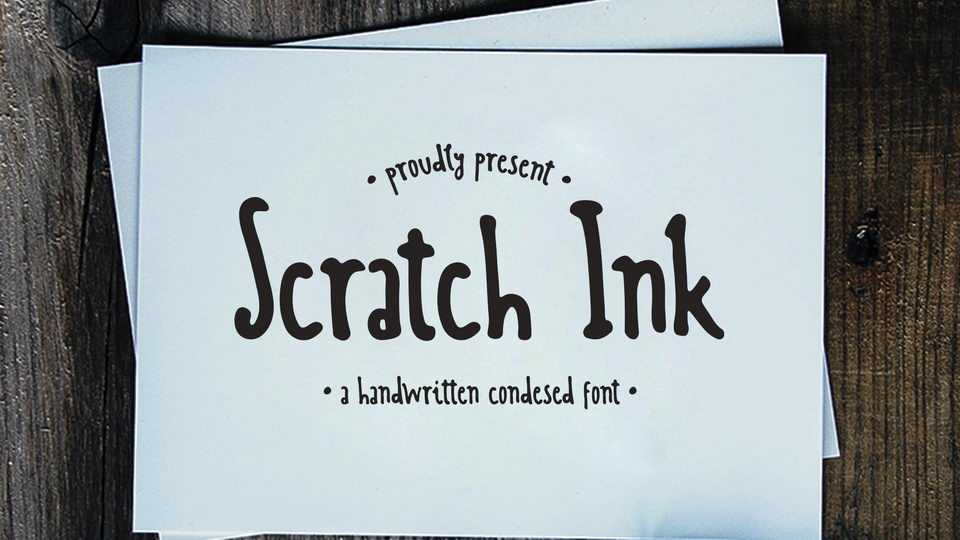
Download Scratch Ink font, a playful and cute handwritten typeface with a very natural feel. Scratch Ink perfect for crafts, notes, quotes, organic products, kids books and other creative projects.
Designer: Wellscript Studio